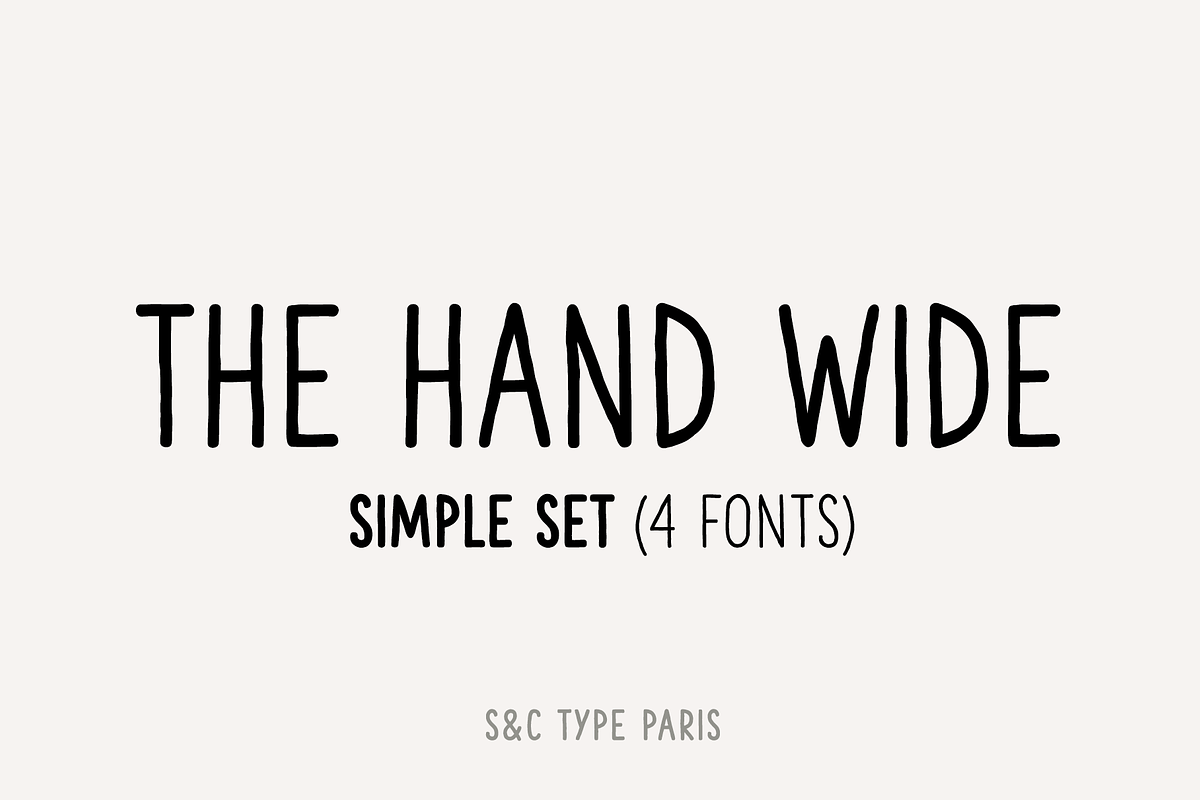
The Hand Wide Font Collection includes four unique, handcrafted fonts designed to bring a personal, artistic touch to your creative projects. Perfect for logos, social media graphics, posters, branding, and any design that requires a bold, expressive style, this collection combines wide letterforms with a hand-drawn charm.
Each font in the collection offers a distinct style, making it versatile for a wide range of applications. Whether you're going for a playful, casual look or something more refined, you'll find a font in this bundle that suits your needs. The collection includes uppercase and lowercase letters, numbers, punctuation, and multilingual support.